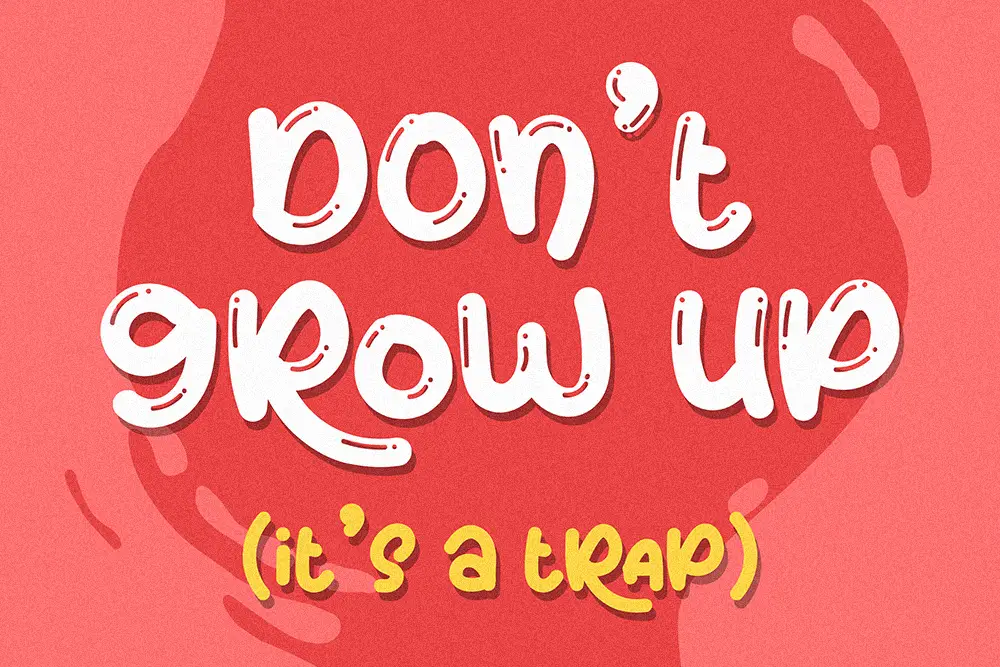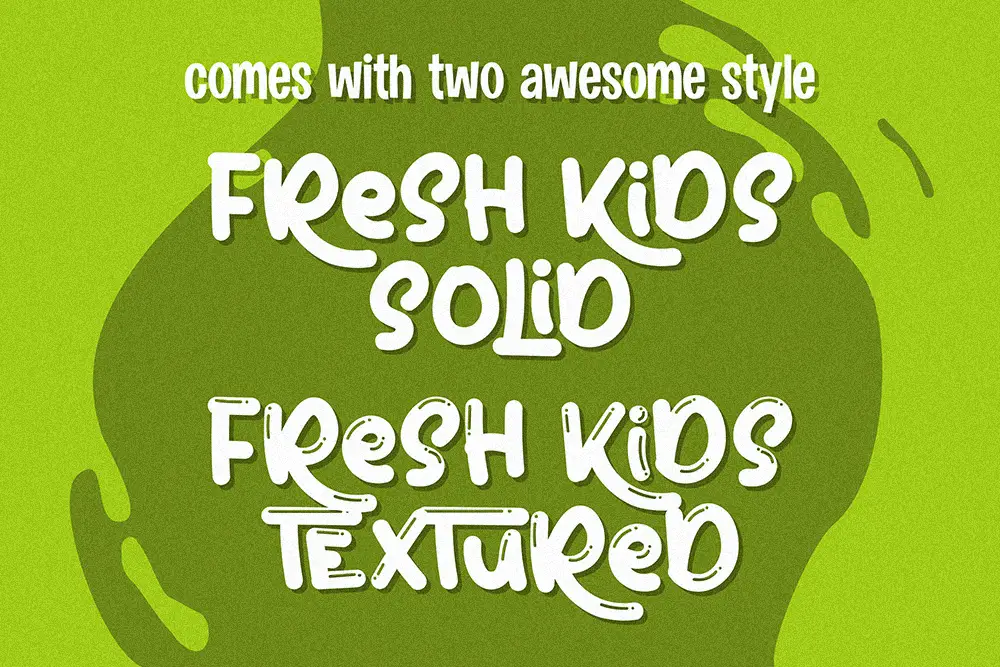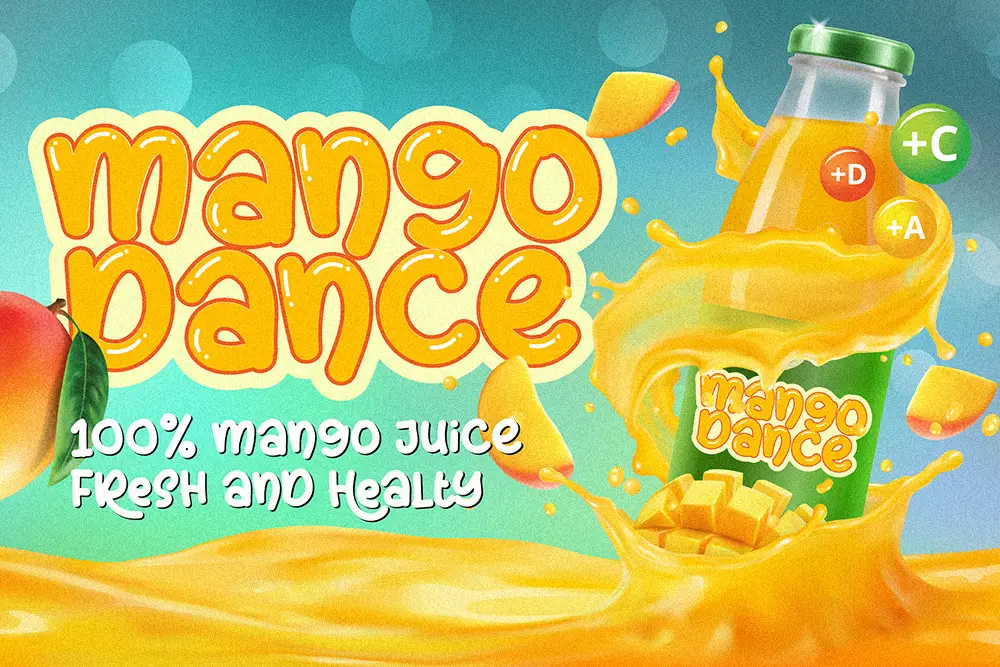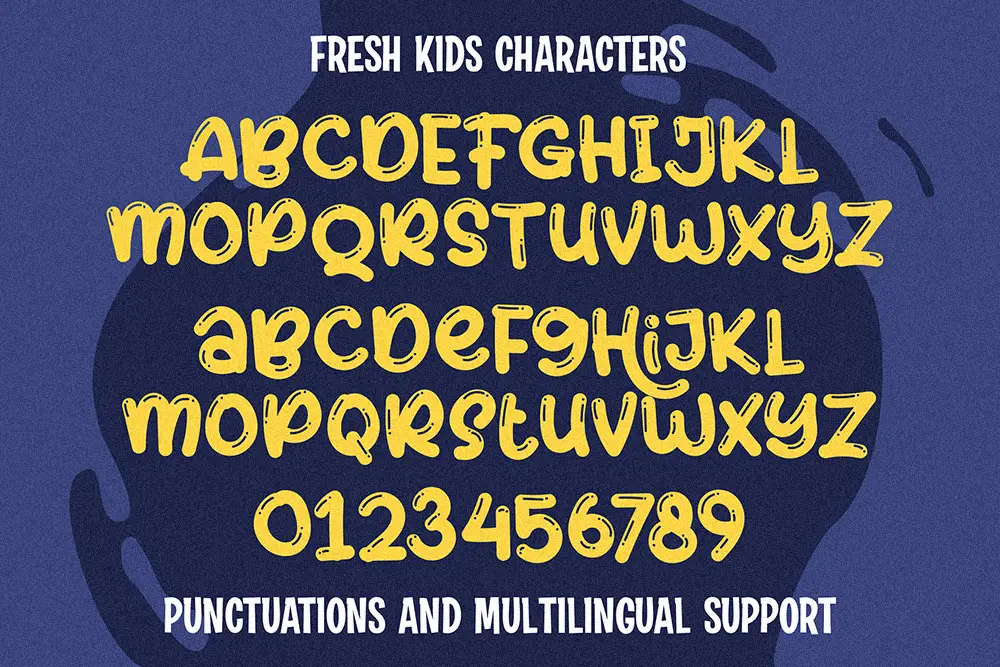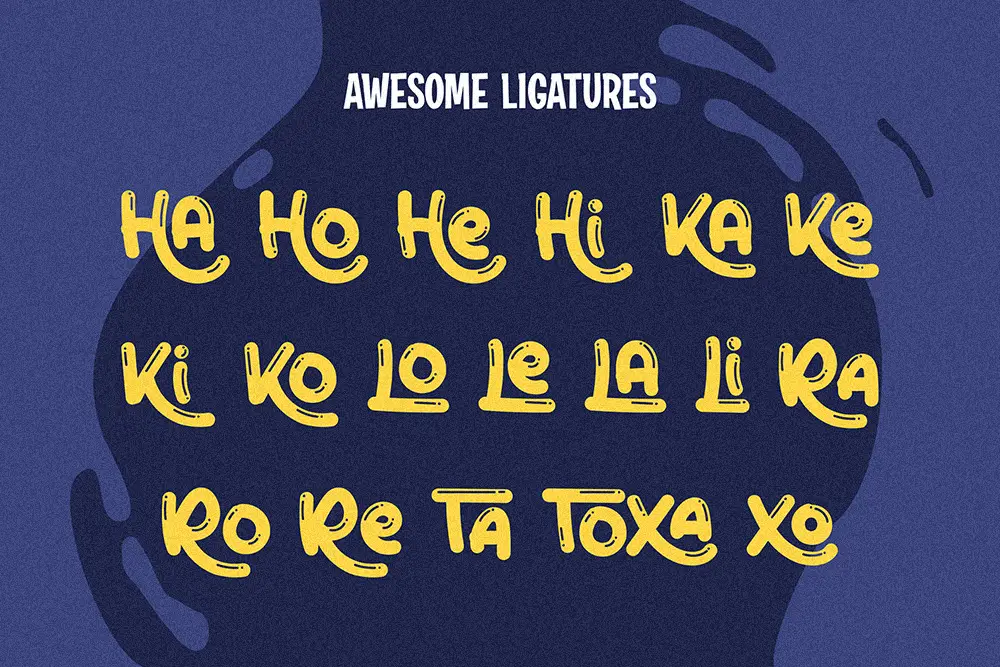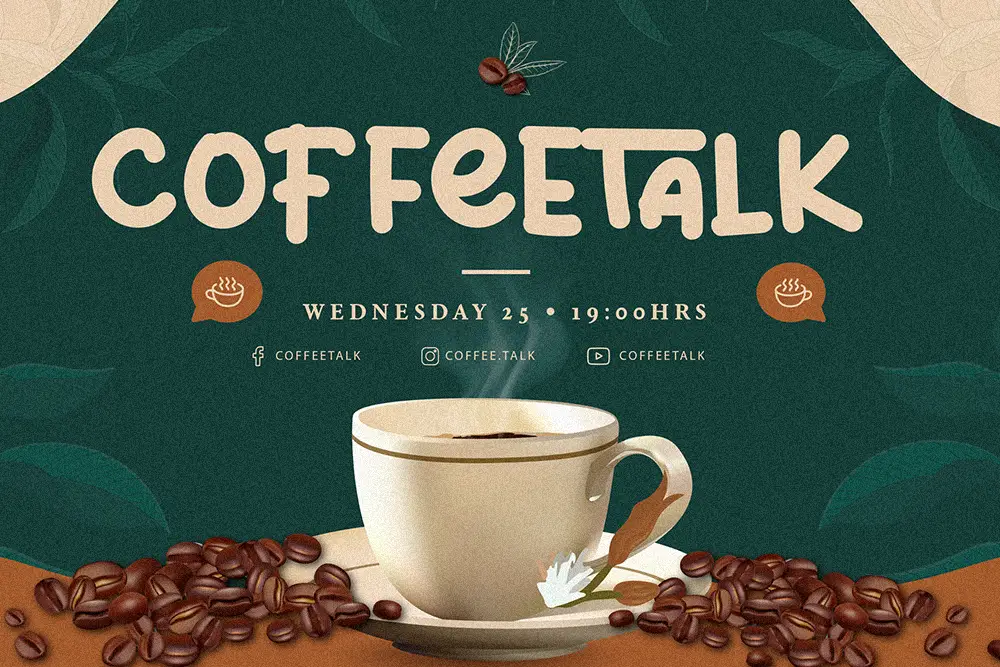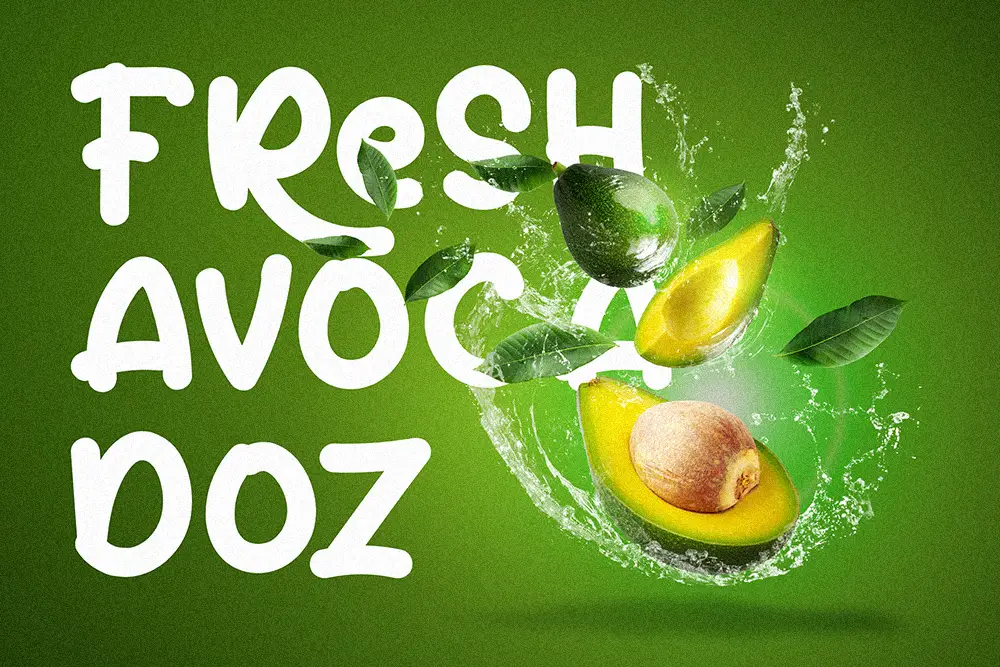
Fresh Kids – Playful Display Font for Fun and Creative Design
When it comes to children’s branding and joyful design, typography is the key element that sets the mood. Fresh Kids – Playful Display Font is crafted to bring energy, charm, and excitement into your projects. With solid and textured versions, this playful display font offers versatility and personality, making it perfect for kids’ logos, birthday posters, school projects, and creative packaging.
From playful branding to digital media, Fresh Kids ensures your designs are lively, memorable, and fun to explore.
Playful Display Font for Bold Headlines
Fresh Kids is designed to capture the essence of youth and creativity. This playful display font comes in two versions—Fresh Kids Solid and Fresh Kids Textured—giving designers the freedom to choose between a clean bold style or a handcrafted playful look. Its bubbly, rounded strokes radiate positivity, making it ideal for kid-focused products and joyful campaigns.
For maximum impact, use this playful display font in large headlines, posters, and banners to immediately connect with your audience.
Key Features of Fresh Kids – Playful Display Font
Here are the essential features that make Fresh Kids – Playful Display Font a must-have:
- Uppercase & Lowercase: Complete set for versatile designs.
- Multilingual Support: Extended Latin characters for global projects.
- Alternates in Numbers: Creative variations to enhance playful aesthetics.
- Two Font Styles: Solid for clarity, textured for a handmade playful effect.
- Perfect for Kids’ Branding: Designed for joyful projects, posters, and packaging.
Why Designers Love Fresh Kids
Designers adore Fresh Kids because it provides everything a playful display font should have: character, versatility, and fun.
- Playful Personality: Perfect for child-focused designs, school branding, and party invitations.
- Double Styles: Solid for clarity, textured for fun depth.
- Creative Flexibility: Number alternates make it more engaging for playful design.
- Perfect Pairing: Looks great with Run Child Playful Display Font for extra fun combinations.
Fresh Kids for Logos and Kids’ Branding
When creating branding for children’s toys, educational products, or playful events, typography must be lively. Fresh Kids is the playful display font that adds life and joy to every design.
Its rounded structure makes it approachable, while the textured version adds uniqueness. Whether for kindergarten logos or candy packaging, Fresh Kids ensures your brand voice is cheerful and recognizable.
Fresh Kids for Posters and Invitations
Posters and invitations thrive when they radiate happiness. Fresh Kids is perfect for birthday invitations, holiday posters, and playful advertising campaigns. Thisfont instantly communicates excitement, making your event look fun and family-friendly.
Fresh Kids in Digital Media
Digital designs also benefit from joyful typography. Fresh Kids is the playful display font to use for YouTube thumbnails, kids’ educational apps, Instagram posts, or colorful banners. Its multilingual support ensures your messages resonate across global audiences.
- Character Set: Uppercase, Lowercase, Numbers with Alternates, Punctuation
- Category: Playful Display Font
- Best Uses: Kids’ Branding, Posters, Invitations, Packaging, Digital Media
Font Pairing Suggestions
To maximize creativity, pair Fresh Kids with other playful or contrasting fonts:
- Run Child Playful Display Font – matches the same joyful energy for children’s branding.
Try Fresh Kids Yourself
Why Fresh Kids is the Playful Display Font You Need
In today’s market, brands targeting kids and playful projects need typography that feels authentic, approachable, and fun. Fresh Kids provides all of this. As a playful display font, it’s versatile, modern, and joyful—ready to shine in print, packaging, or digital platforms.
With multilingual support, alternate numbers, and both solid and textured styles, Fresh Kids isn’t just another font. It’s a design tool that transforms projects into joyful experiences.
Fresh Kids – Playful Display Font is the ultimate typeface for fun-loving designs. Whether you’re creating logos, posters, invitations, or digital media, this font ensures your work radiates joy and creativity.